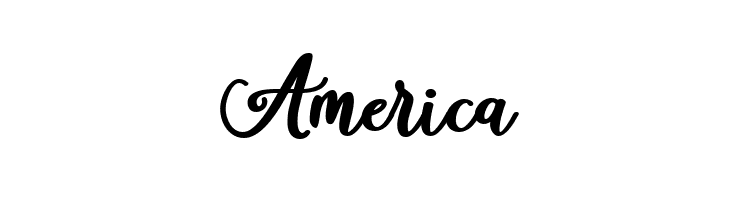
A bold, outlined, semi-italic font with a modern, dynamic style.
A bold, condensed font with sharp angles and geometric forms.
A stylish and elegant script font with flowing, connected letterforms.
A playful, bold script font with a handwritten style.
A playful, handwritten script font with smooth, connected letters.
A bold, geometric, and condensed font with a modern, futuristic style.
A bold, gothic-style font with sharp, angular edges and dramatic flair.
A bold, beveled, and italicized font with a modern, three-dimensional look.
A casual, artistic handwritten font with fluid, connected letters and dynamic strokes.
An elegant script font with flowing, interconnected letters and intricate swirls.
设计师偏爱 Blizzard Shaft Outline SemItal, Archipelago Thin Condensed, Kupika, Okuland Regular and Fineliner Script,因为其造型干净、适用范围广—— 从品牌识别到落地页、海报都能胜任。